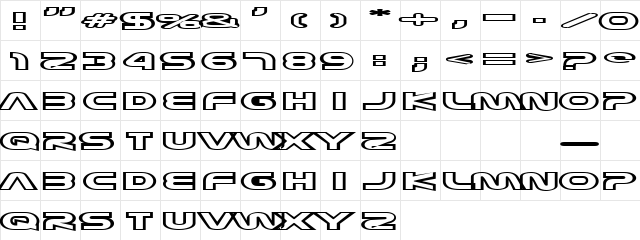
New Windings Regular
Design Context for New Windings Typeface
New Windings is a composed and adaptable typeface that performs quietly and consistently across a wide range of design contexts.